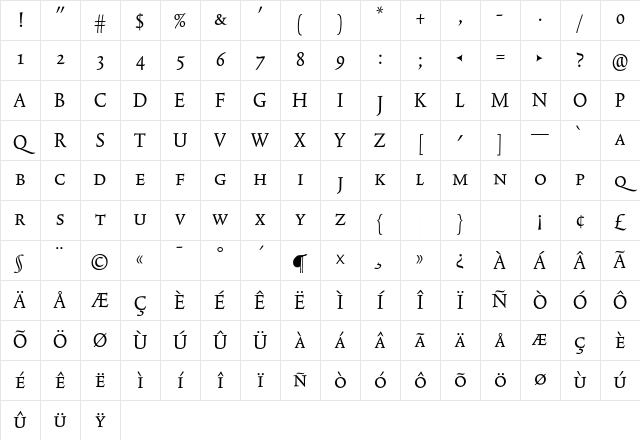
TriniteNo3 RomanCondExp
Style: RomanCondExp
TriniteNo3 Family
TriniteNo3 RomanCondExp
Design Context for TriniteNo3
TriniteNo3 is a composed and adaptable typeface that performs quietly and consistently across a wide range of design contexts. Its narrow stance lets it pack a punch even in space-constrained designs.